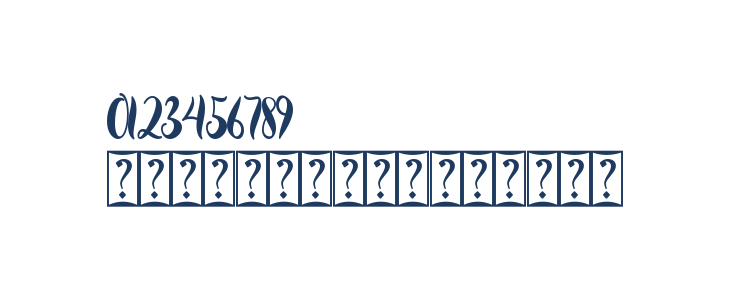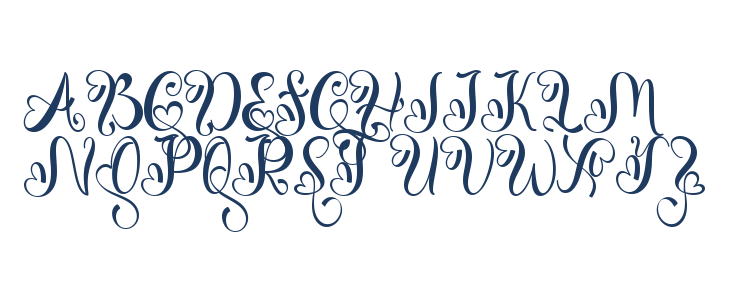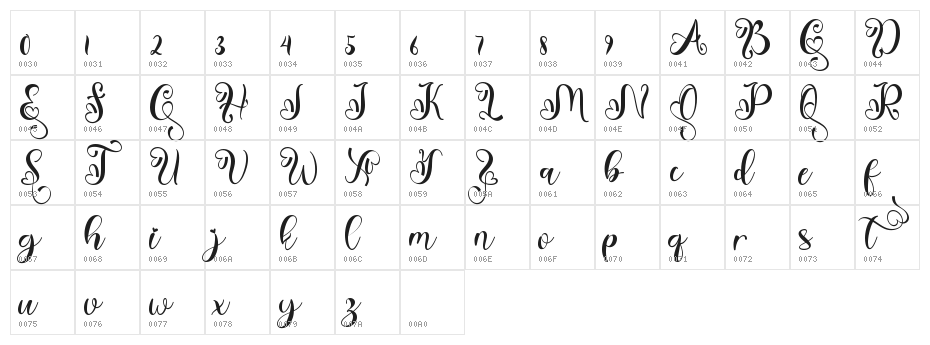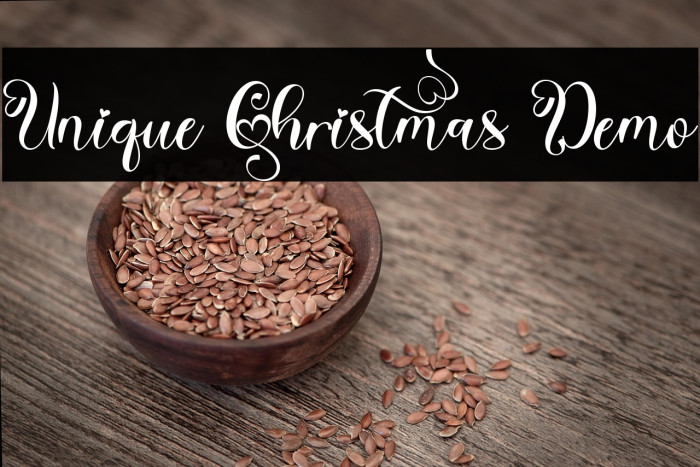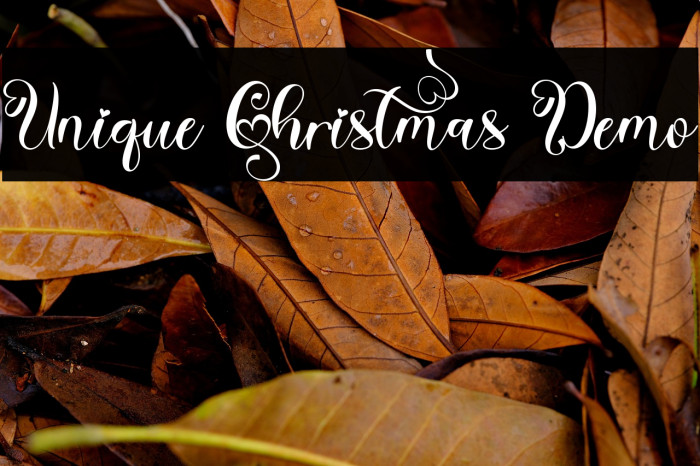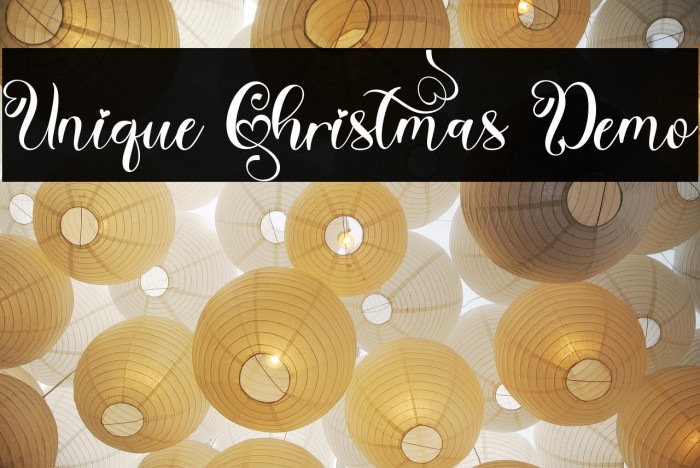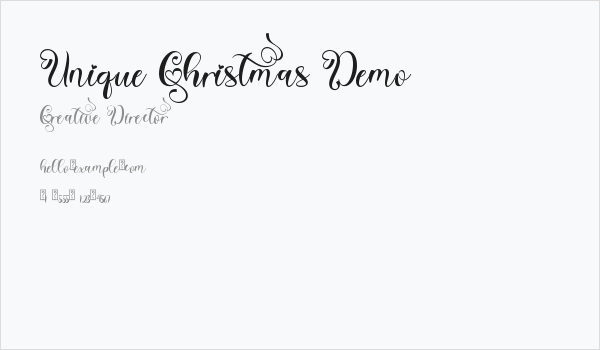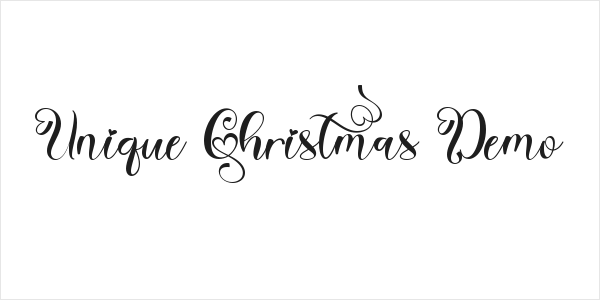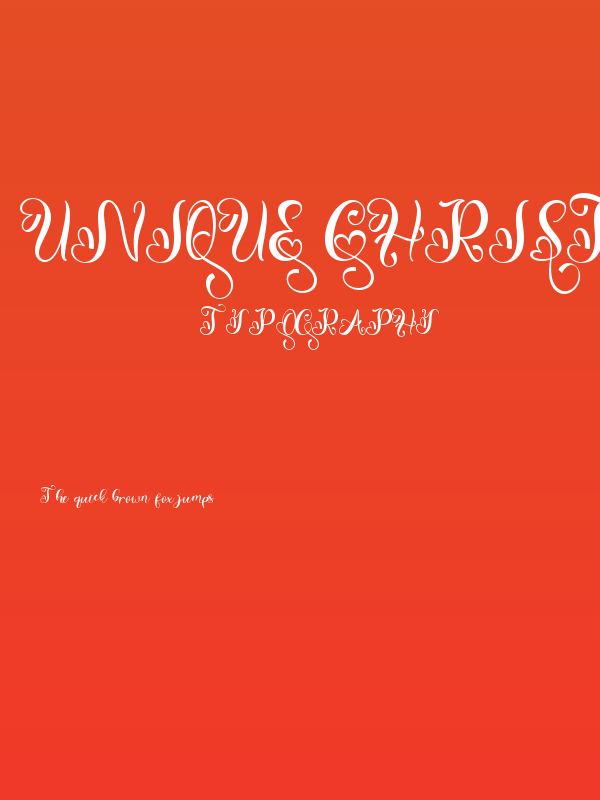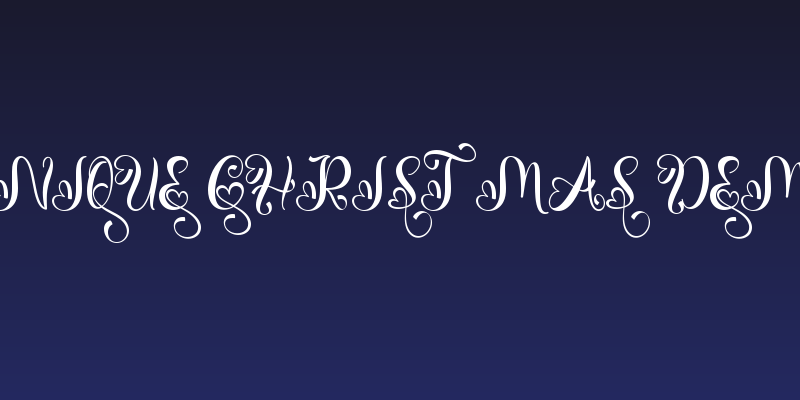
Unique Christmas Demo Font
Unique Christmas Demo Description
A decorative script font featuring elaborate swashes, curls, and heart-shaped flourishes, with both uppercase and lowercase letters exhibiting high contrast and playful, festive elements. The numerals are stylized to match the ornate letterforms, and the overall design conveys a whimsical, celebratory feel.
| Overall Style | Decorative, Festive, Whimsical |
| Use Case | Headlines, Invitations, Logos, Greeting cards |
| Proposed Projects | Holiday cards, festive invitations, event posters, branding for seasonal products, decorative signage. |